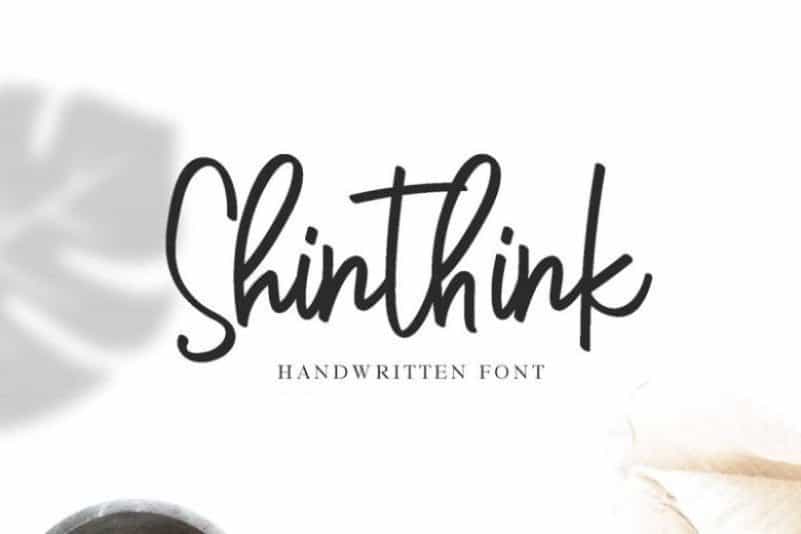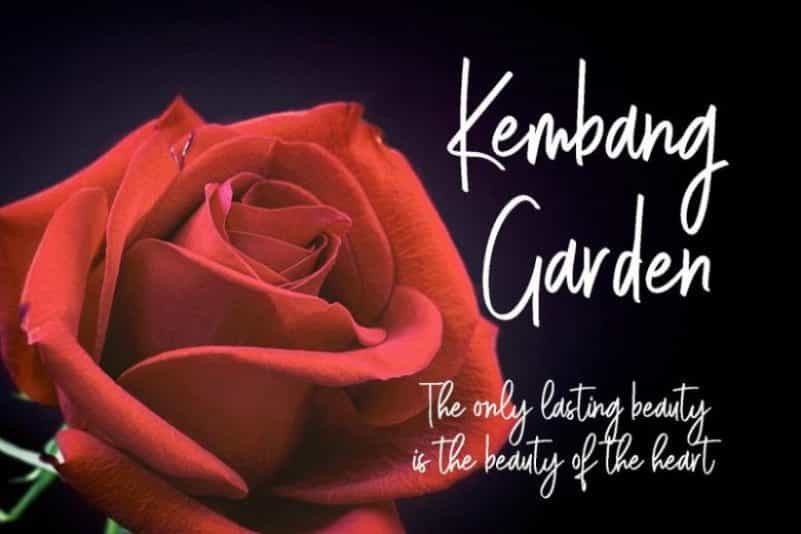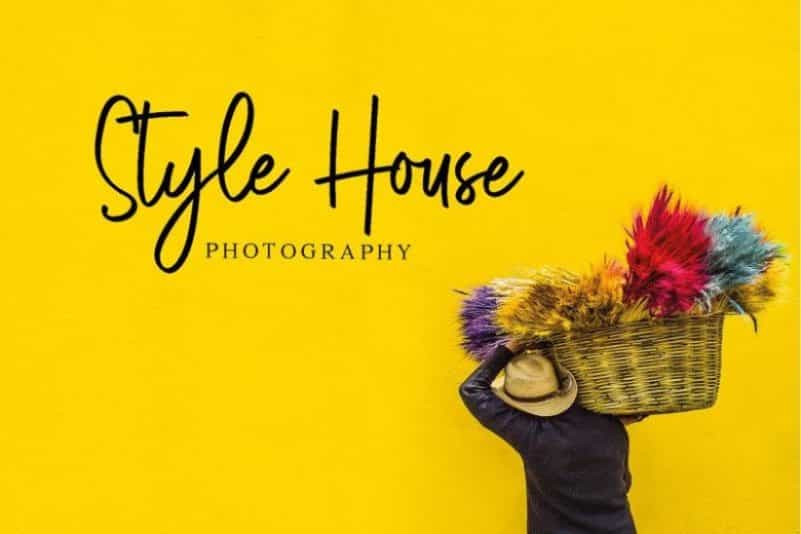
Discover Shinthink Script Font, part of the Brush Handwritten Comic collection—a versatile and unique font perfect for adding a personal touch to your projects. Download it for free and enjoy crafting designs with style, from invitations to social media posts. This font is available exclusively for personal use, giving you the freedom to create without limits. Unlock your creativity with Shinthink Script Font today!
Introducing Shinthink Font. This is another free handwritten script font with simple and natural touch, this can be a perfect choice for your following creation work like photography watermark, quotes design, album arts, logo, business cards, and many other kind of design works.